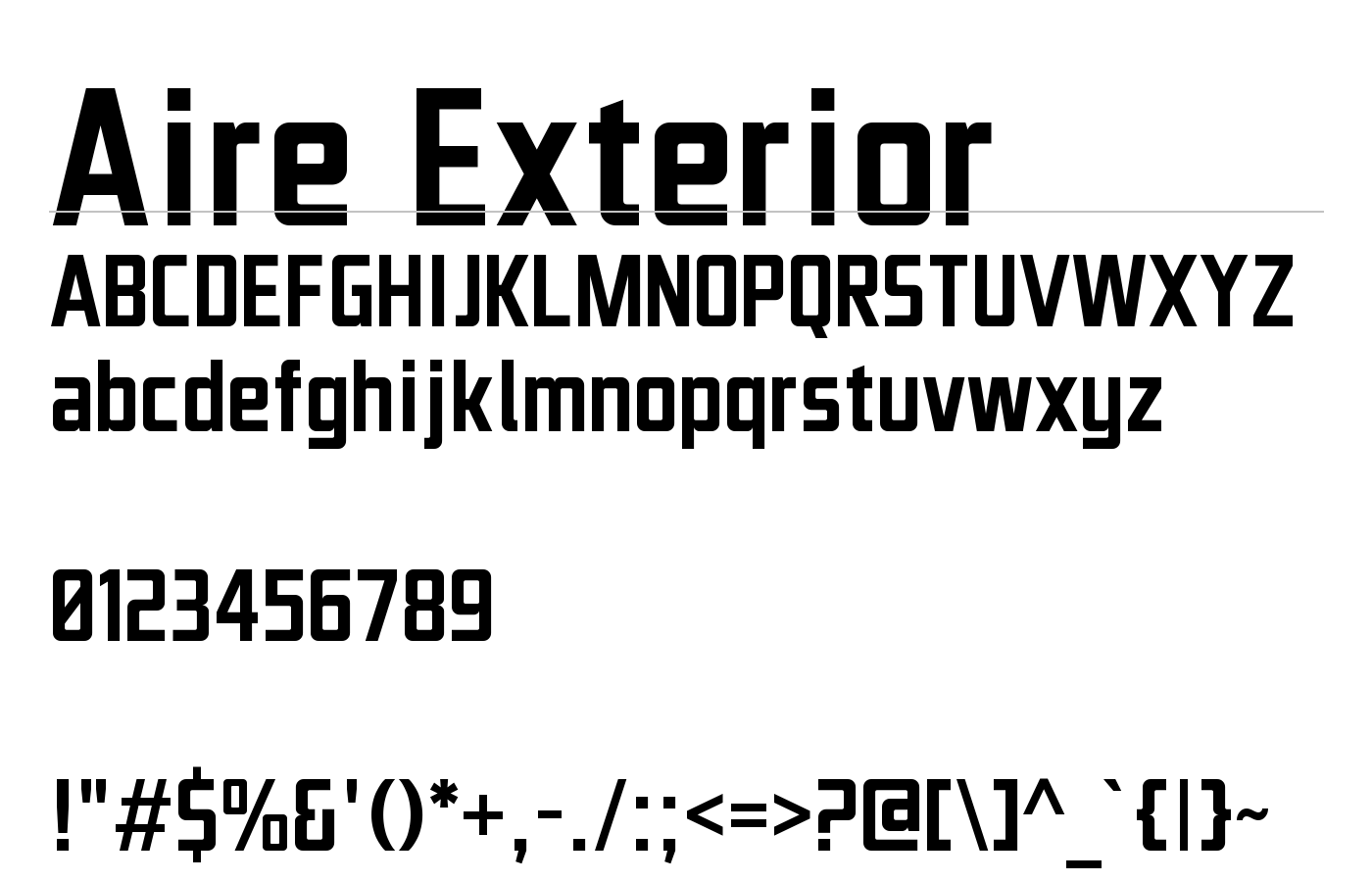
Aire Exterior is a bold, condensed sans-serif font with a modern, industrial feel, characterized by its strong geometric shapes and uniform stroke weight. Its tall x-height and squared letterforms create a commanding presence ideal for impactful headlines, branding, and editorial use where clarity and a contemporary edge are essential. This font works especially well for fashion, technology, and urban-themed designs that seek a sleek yet assertive style.